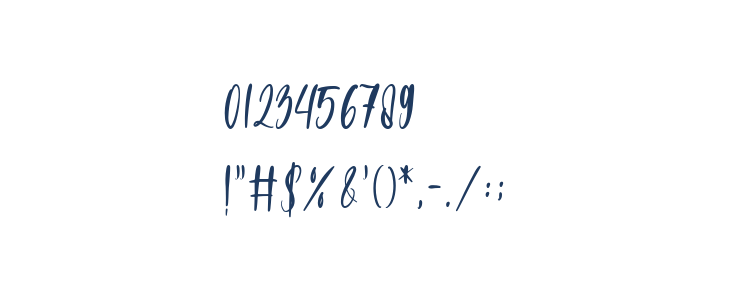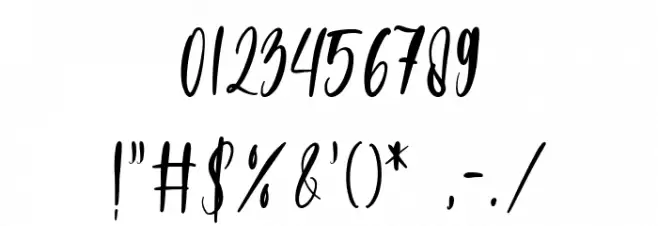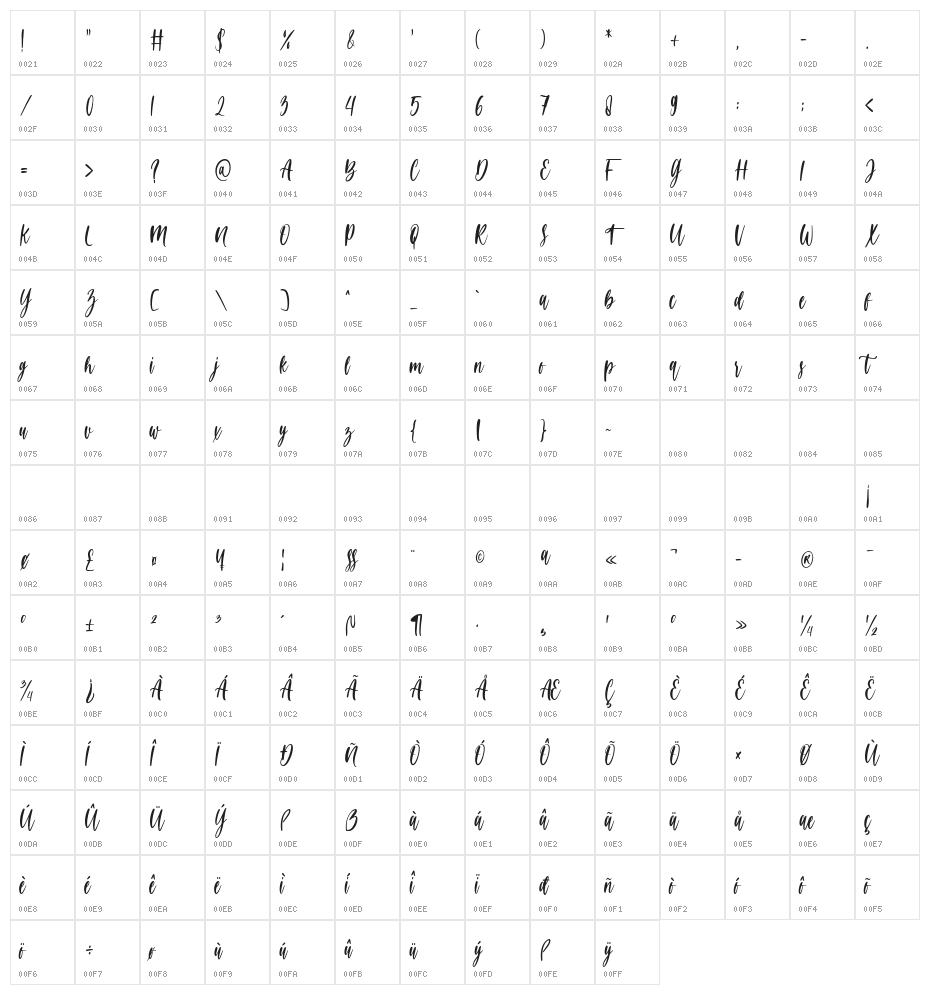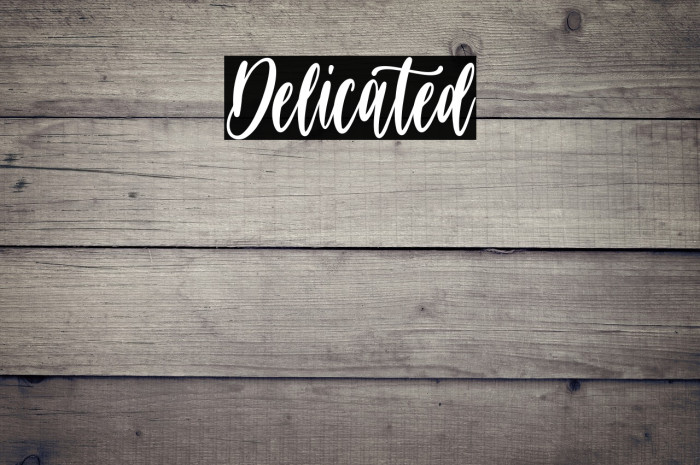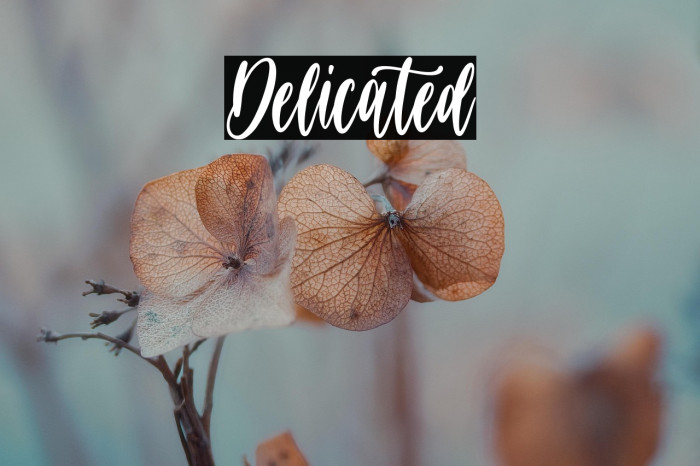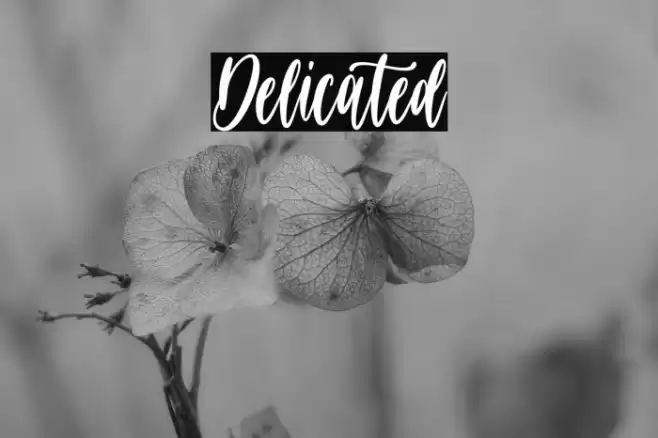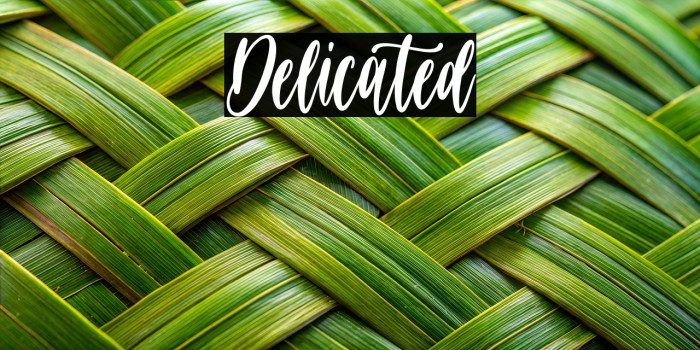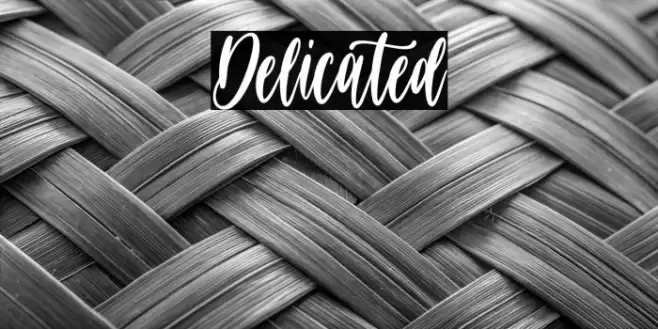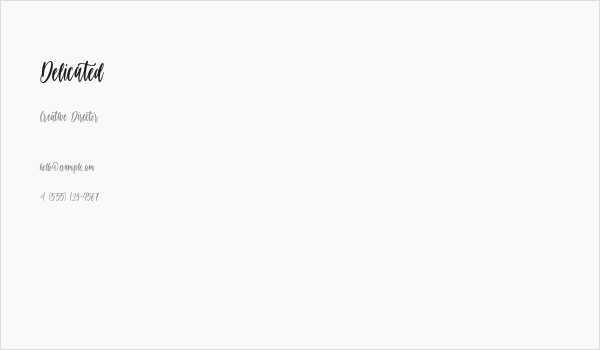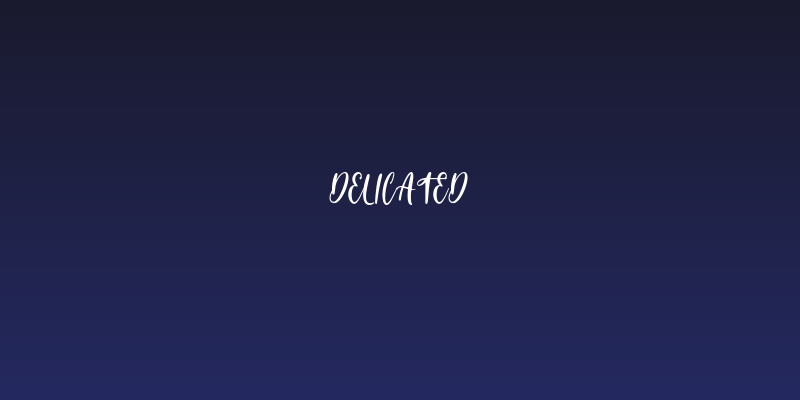
Delicated Font
Delicated Description
This font features an elegant and flowing script style, characterized by its smooth, cursive letterforms that mimic the fluidity of handwriting. The uppercase letters are bold and slightly slanted, giving a dynamic and lively appearance. The lowercase letters maintain a consistent flow, with some letters featuring loops and flourishes that add to the overall decorative feel. The numerals are styled to match the script's elegance, while the special characters integrate seamlessly with the alphabet, maintaining the same stylistic curves and strokes. This font exudes a sense of sophistication and creativity, making it suitable for projects that require a personal and artistic touch.
| Use Case | Logos, Invitations, Artistic designs |
| Proposed Projects | Ideal for wedding invitations, greeting cards, branding projects, and artistic designs. |